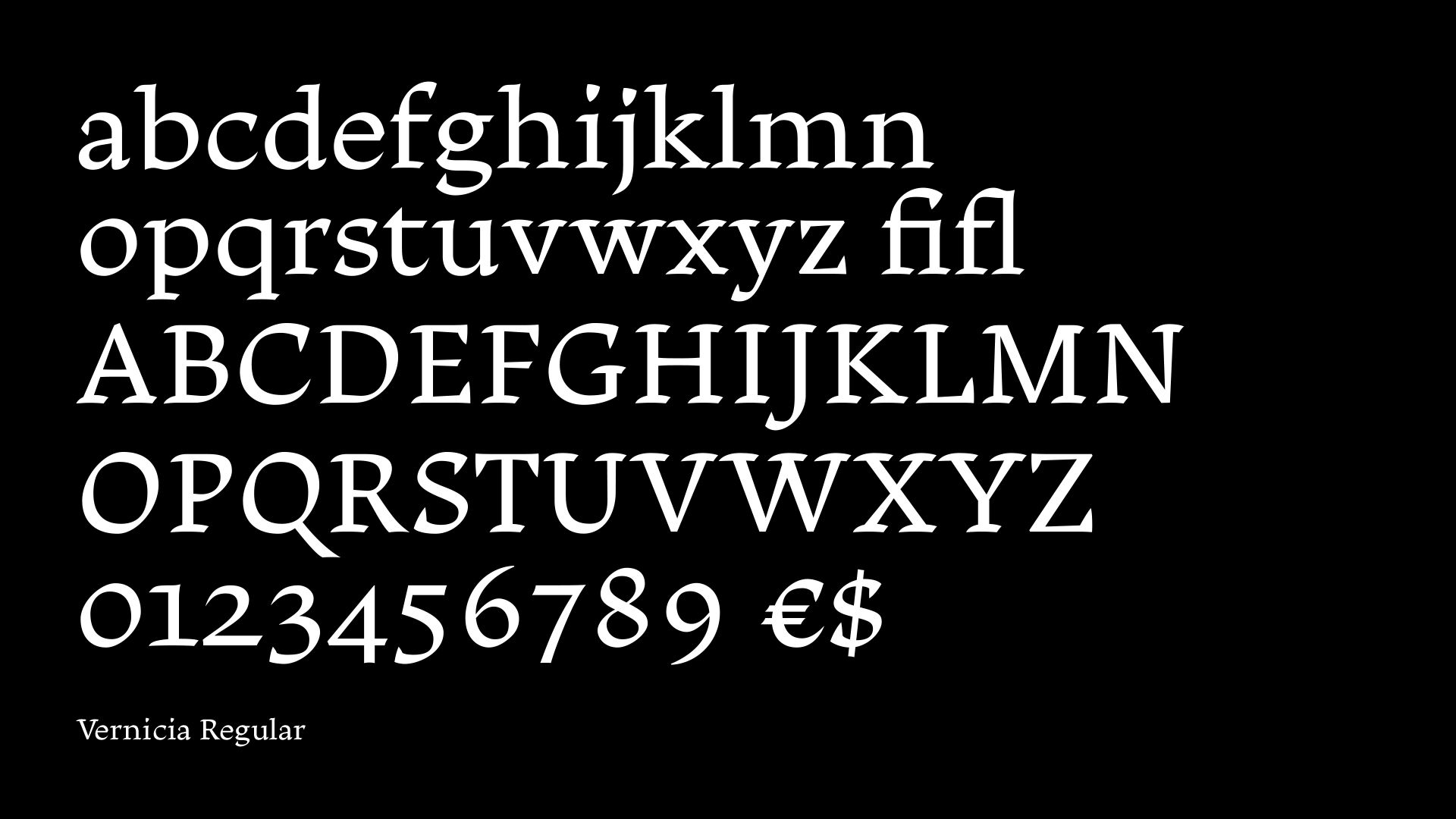
Vernicia
Vernicia is a serif typeface family exploring a natural fusion between Latin and Chinese calligraphy. The typeface is intended for literature and books, especially those translated from the Chinese language, to infuse the text with an more organic and calligraphic texture, as well as a sense of Chinese origin. The typeface family currently consists of four styles: regular, text, condensed, and italic, each available in five different weights.
The design of the typeface started with Latin humanistic calligraphy with broad nib pens, and as the calligraphy were being transformed into type, the Latin letterforms were gradually shaped by my own background in Chinese calligraphy. Charecteristics from Latin and Chinese calligraphy were then studied and compared, and a series of iterations and adjustments were made in order to determine the right balance between Latin and Chinese, without pushing it too far or turning it into something clichéd. Some of the main influences from Chinese calligraphy on the Latin letterforms include: a wider proportion than normal Latin letters; serifs as separate strokes, instead of as attachments of the main stems; and a more rapid transition between the thick and the thin parts within a single strokes.
With the design for the main style finalized, the focus of the design process switched to expanding the family as well as solving specific issues when using the typeface for literature and books. A low contrast text style was developed and tested, which is more suitable for setting long body text in small sizes. A condensed version of the typeface was also created, to provide an alternative style for setting more impactful display text. Finally, italics were designed with Ludovico degli Arrighi’s calligraphy work in mind, which introduces a more angular and condensed texture to the italics, in order to contrast with the wide letterforms of the main style.
The name of the typeface comes from the Latin name of tung-oil tree, vernicia fordii, which is a species native to southern China, and is traditionally used to make Chinese calligraphy ink.